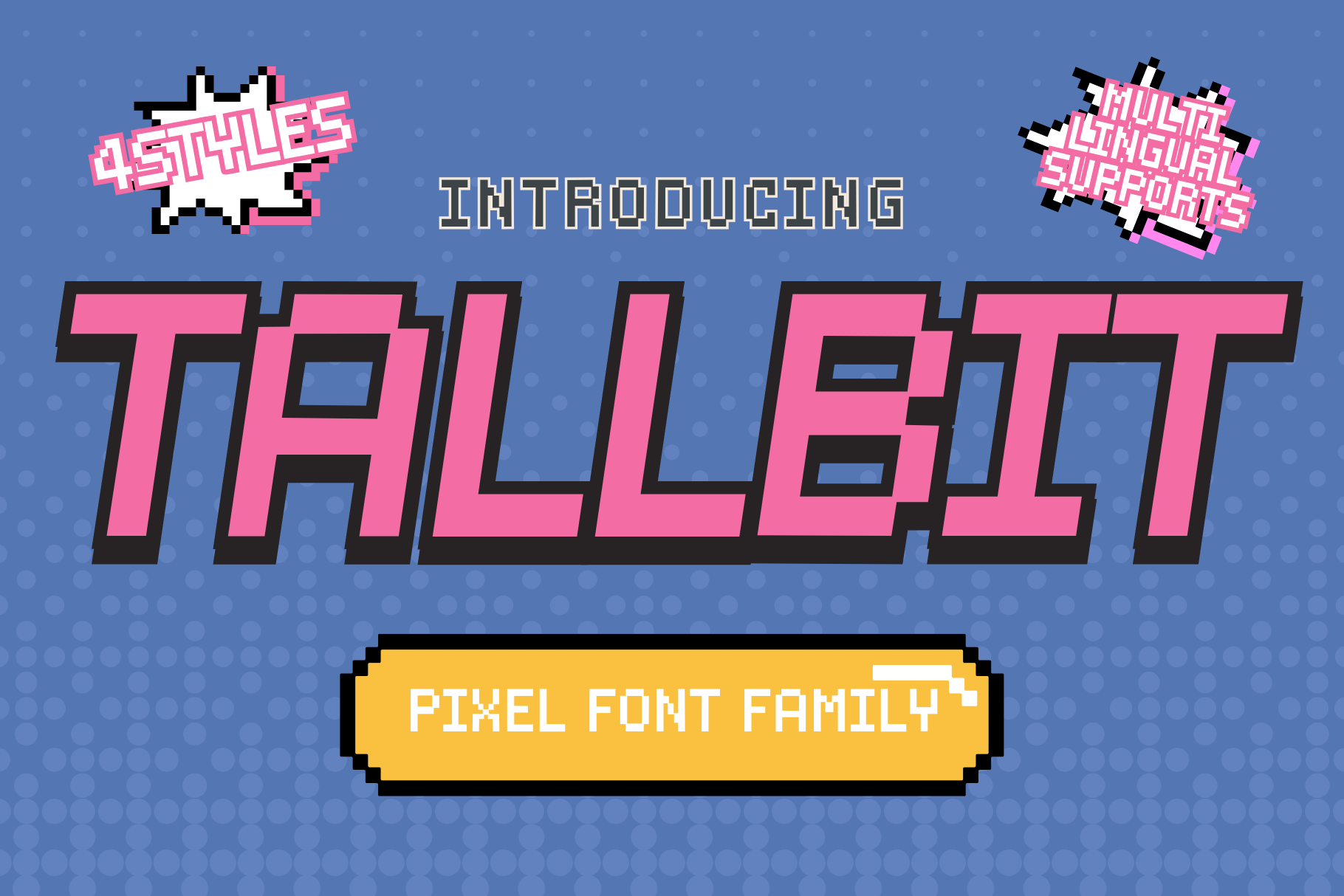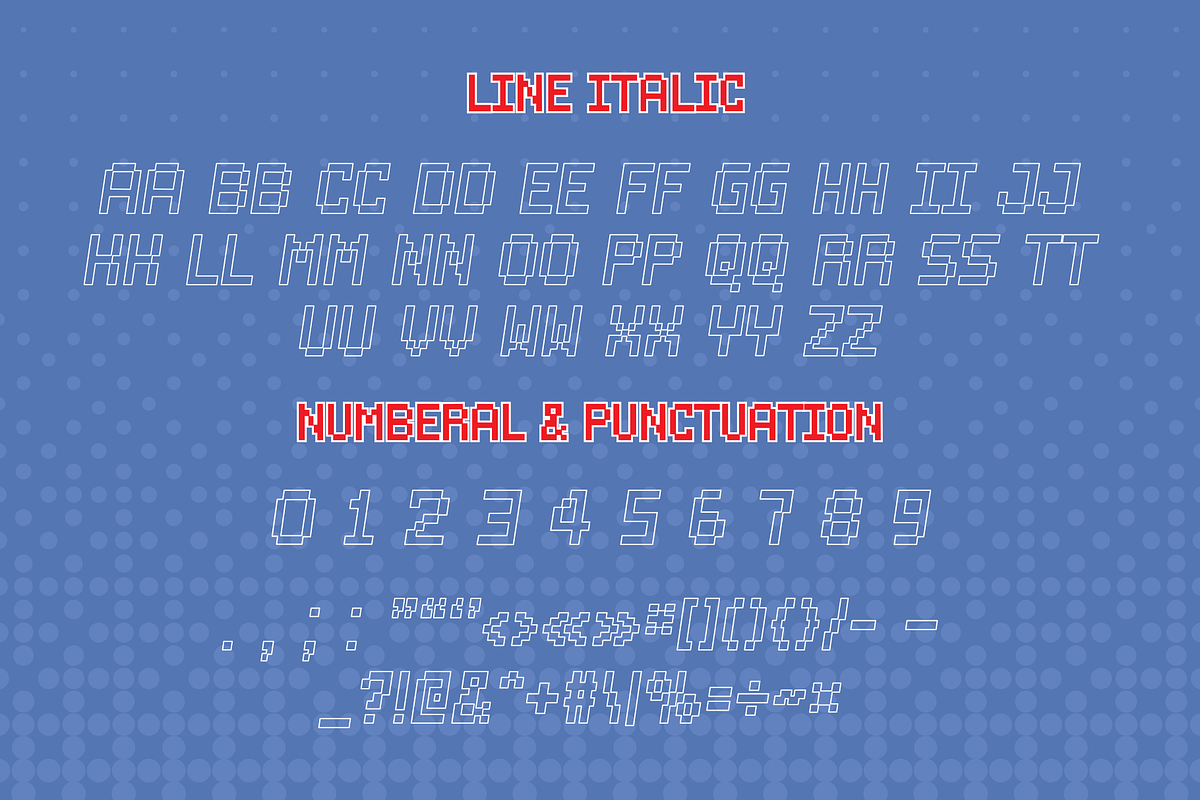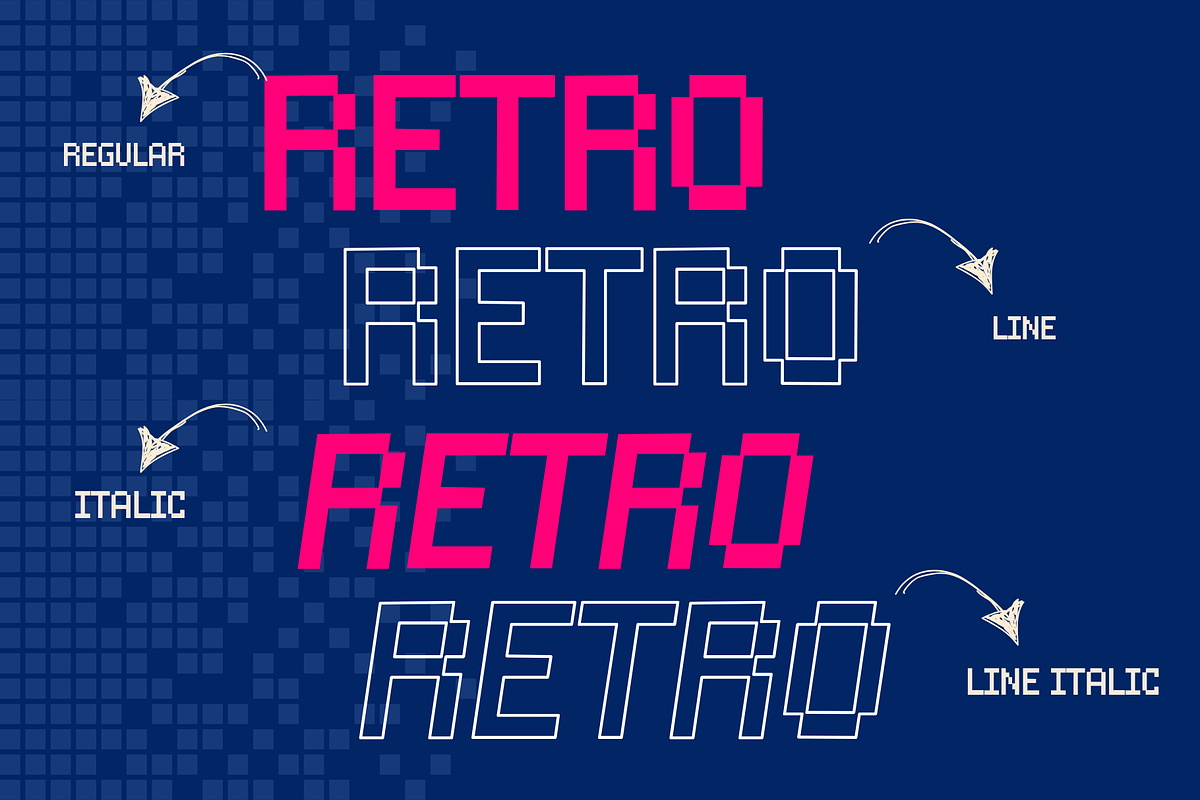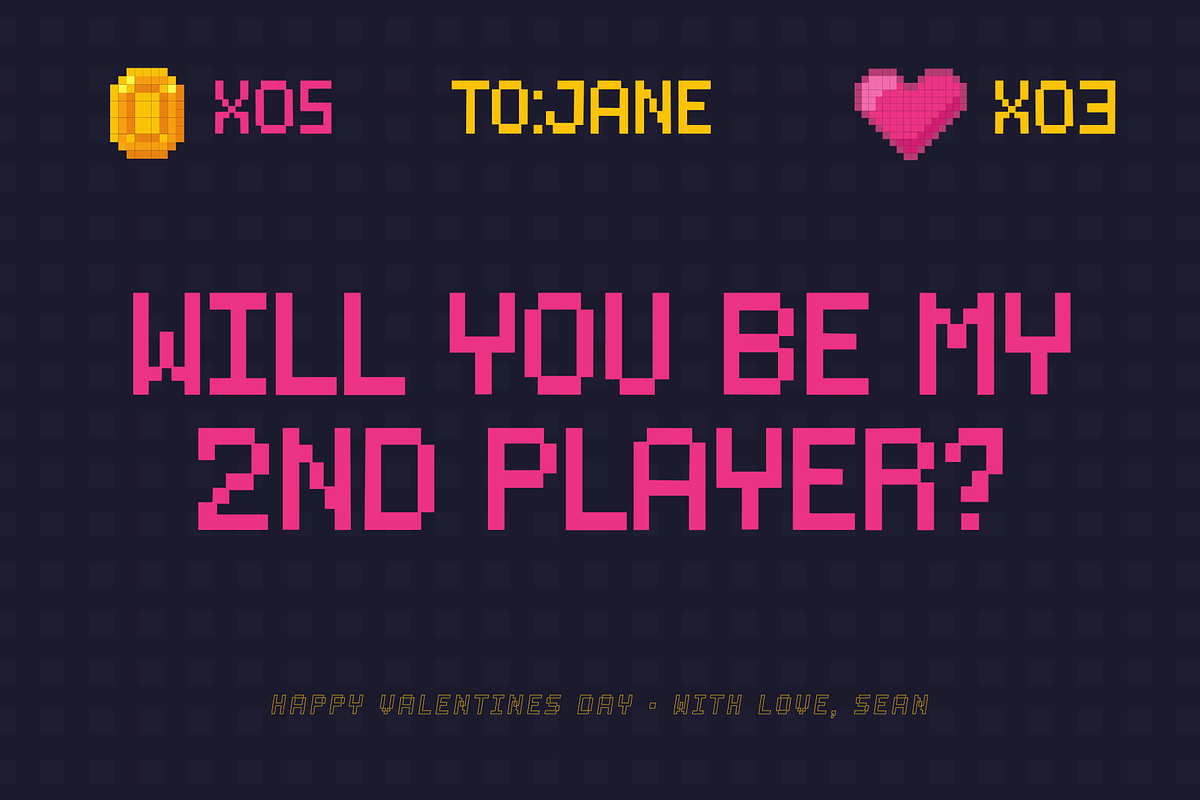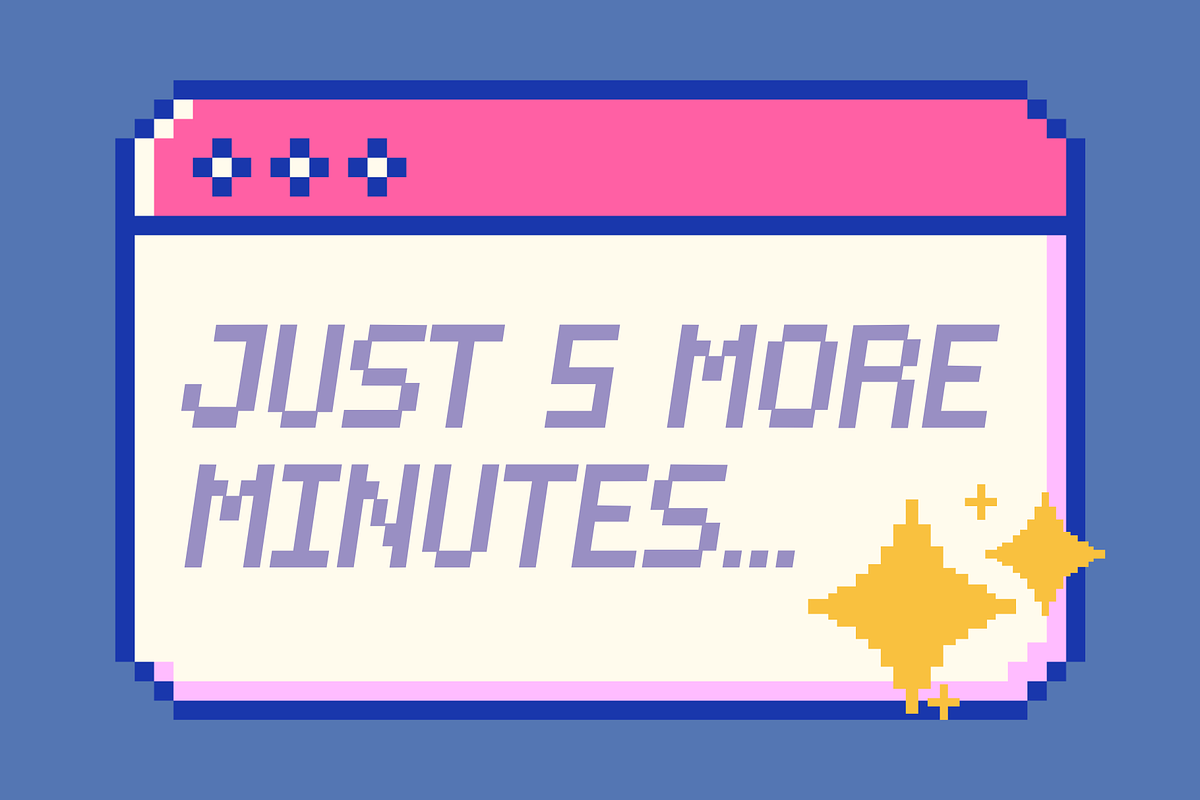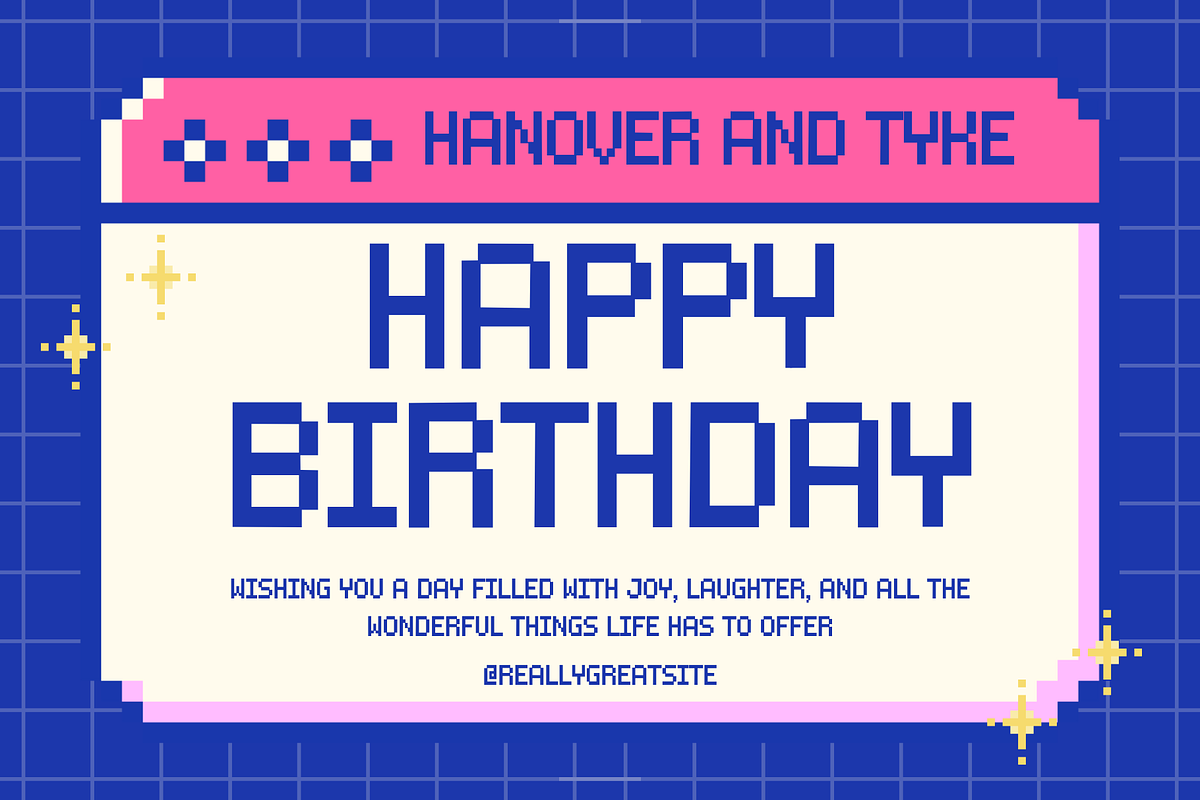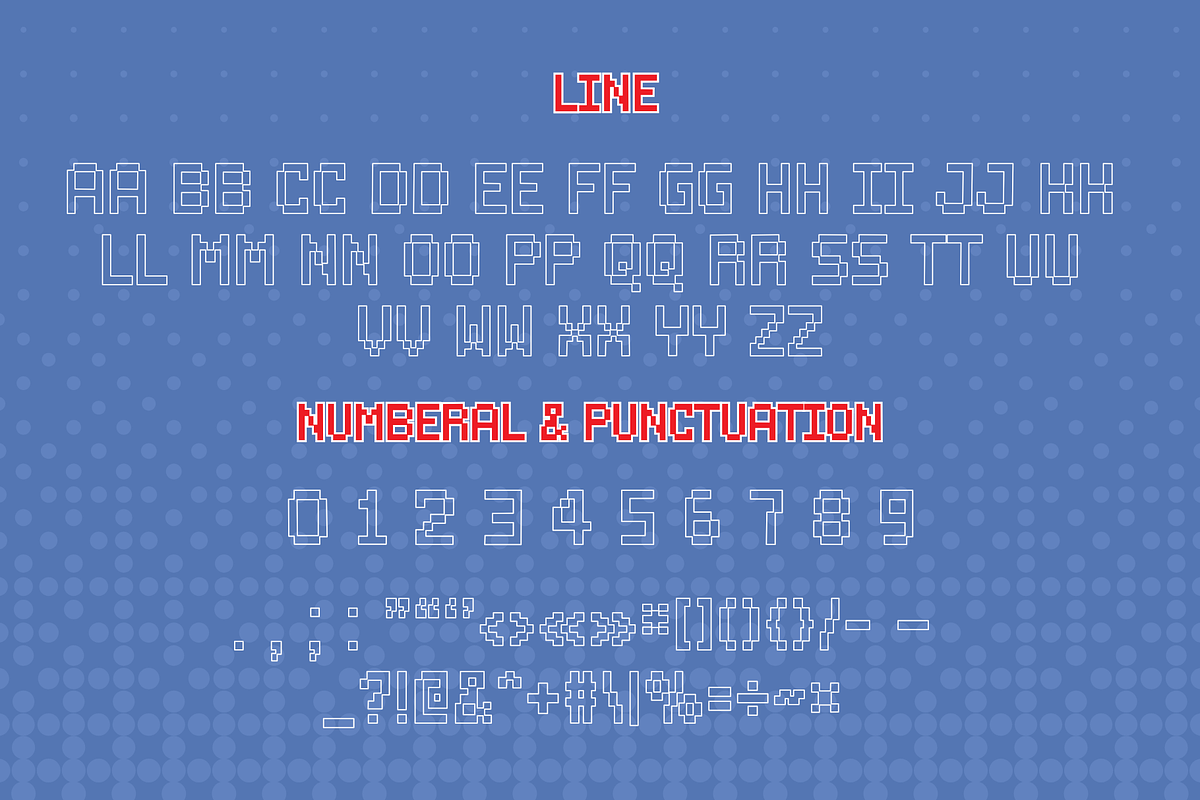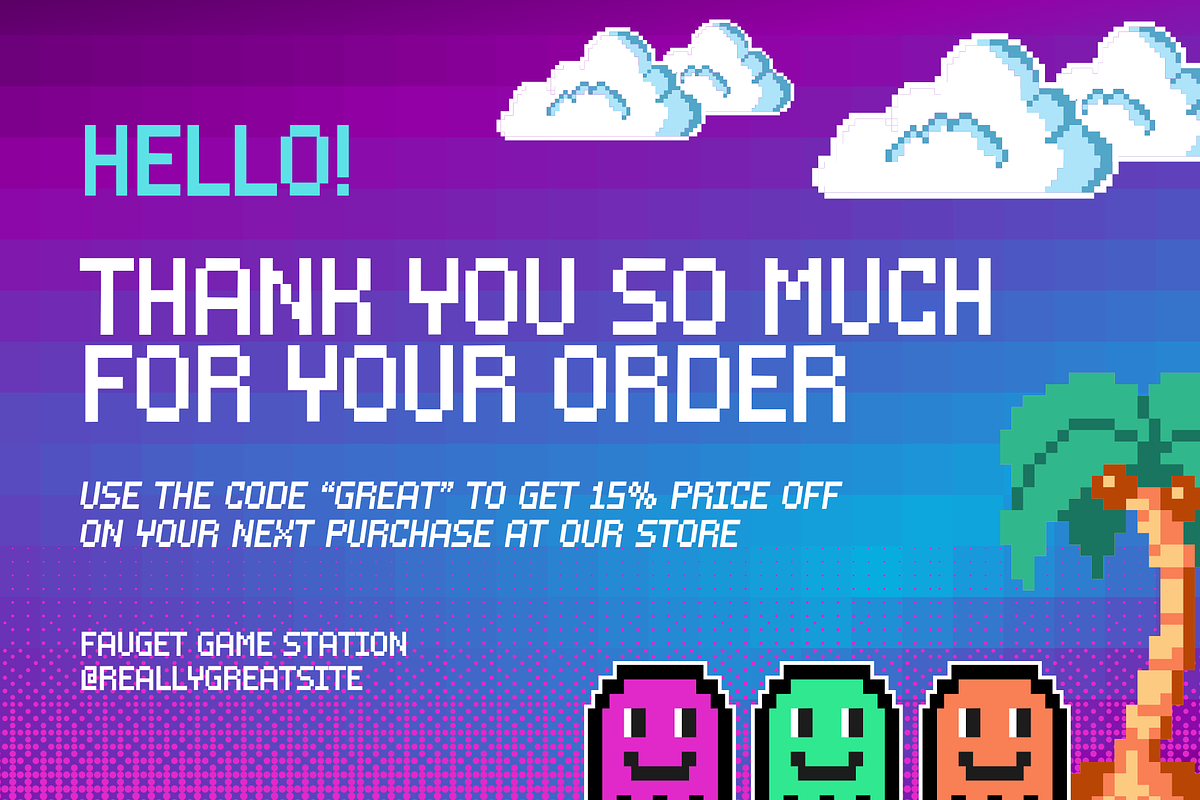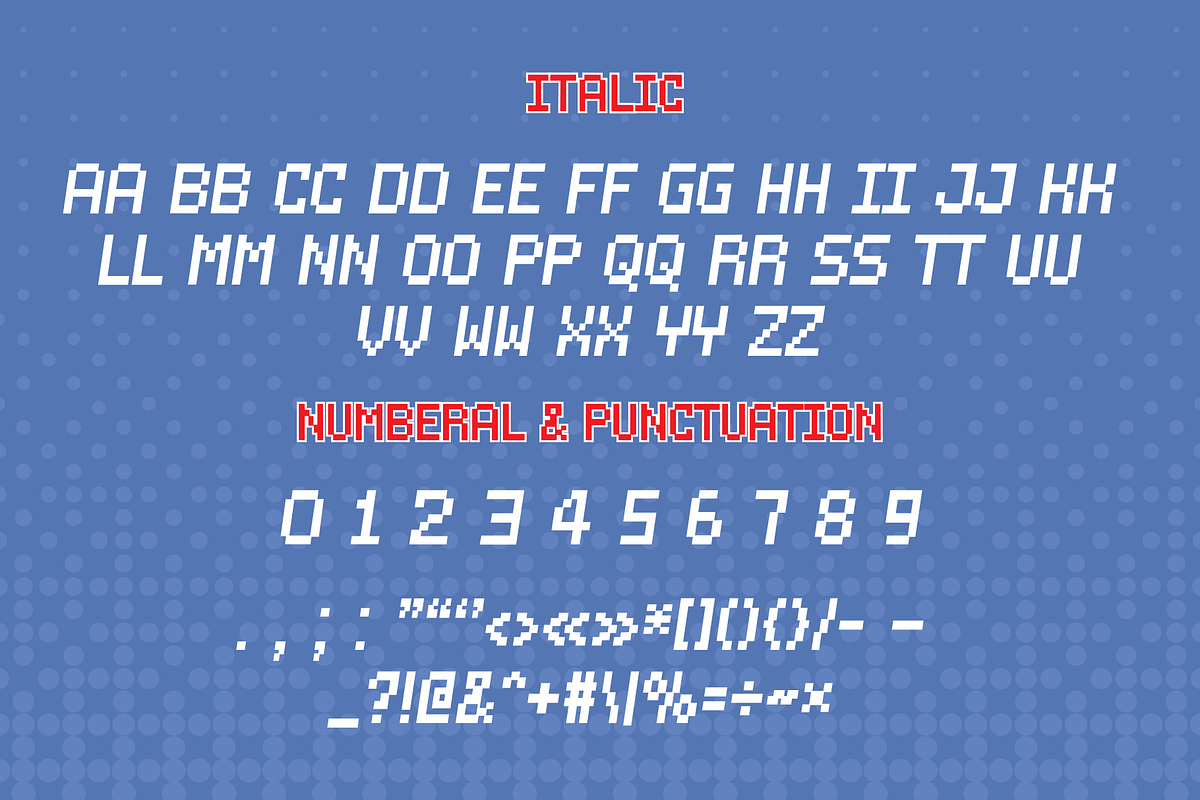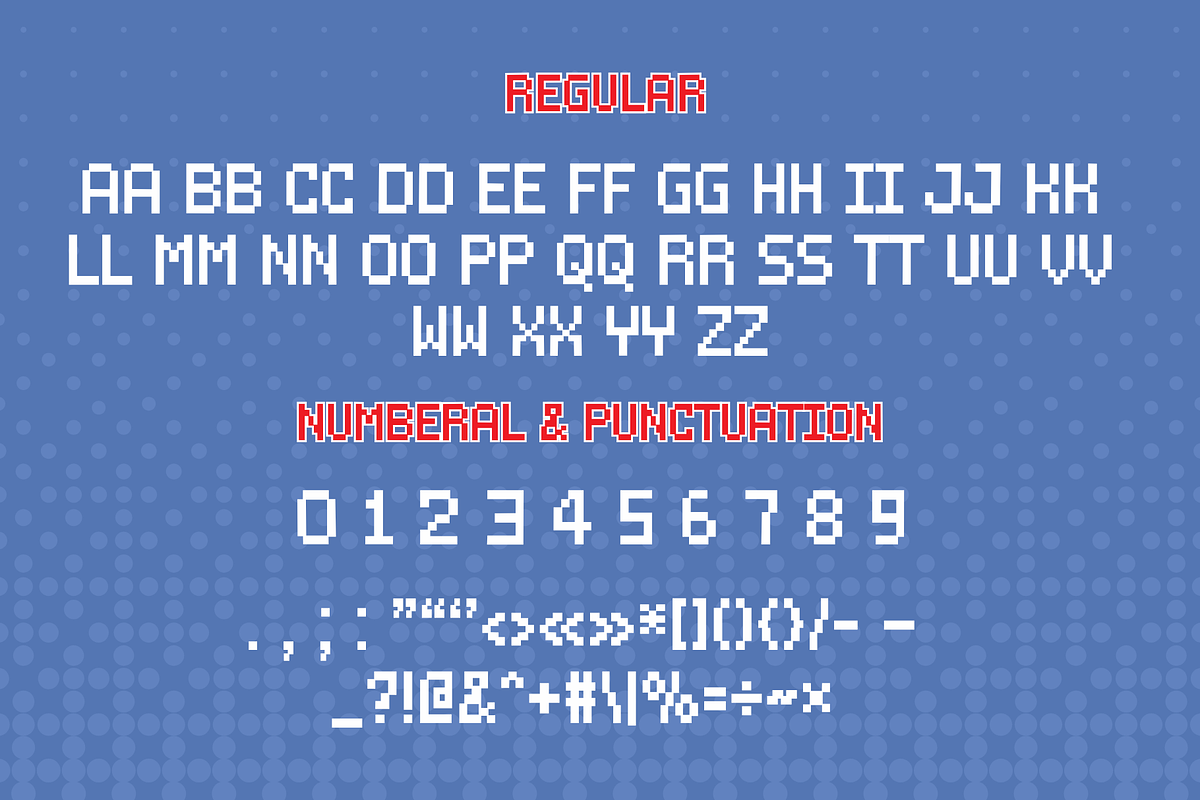
Tallbit is Pixel Family Font
Tallbit is a clean, vertically stretched pixel font designed with precision and simplicity in mind. Its tall, narrow letterforms and monospaced structure give it a retro-digital look while remaining highly legible even at small sizes. Inspired by the aesthetics of voxel games and 8-bit interfaces, this typeface is perfect for sandbox-style games, in-game UI, retro titles, or creative coding environments.